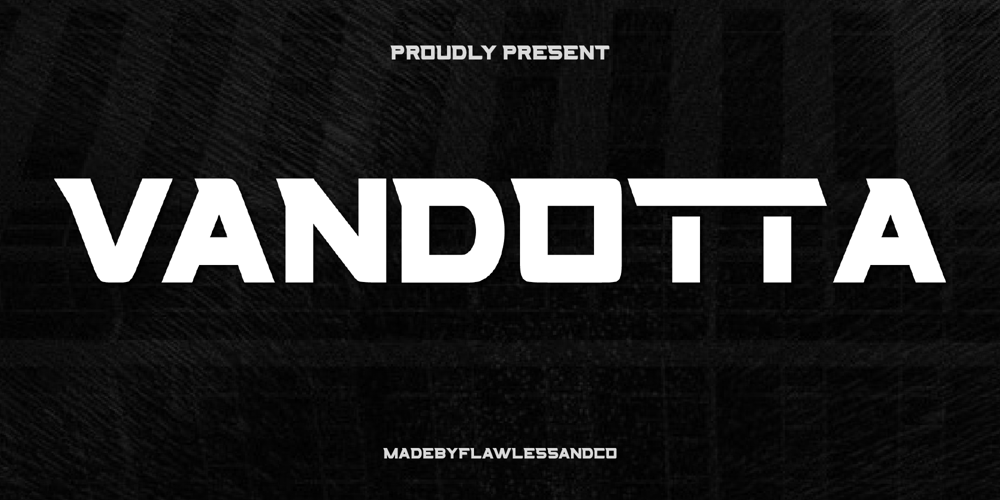
Vandotta Font Family was designed by Achmad Yani and published by Flawlessandco. Vandotta contains 1 styles and family package options. Introducing Vandotta, a dynamic and powerful sport display font designed to make a bold statement. With its sleek lines and strong geometric shapes, Vendetta embodies the spirit of competition and athleticism.There’s some connected letters and some alternates that suitable for any graphic designs such as branding materials, t-shirt, print, business cards, logo, poster, t-shirt, photography, quotes .etcThis font support for some multilingual. Also contains uppercase A-Z and lowercase a-z, alternate character, numbers 0-9, and some punctuation.If you need help, just write me! Thanks so much for checking out my shop!